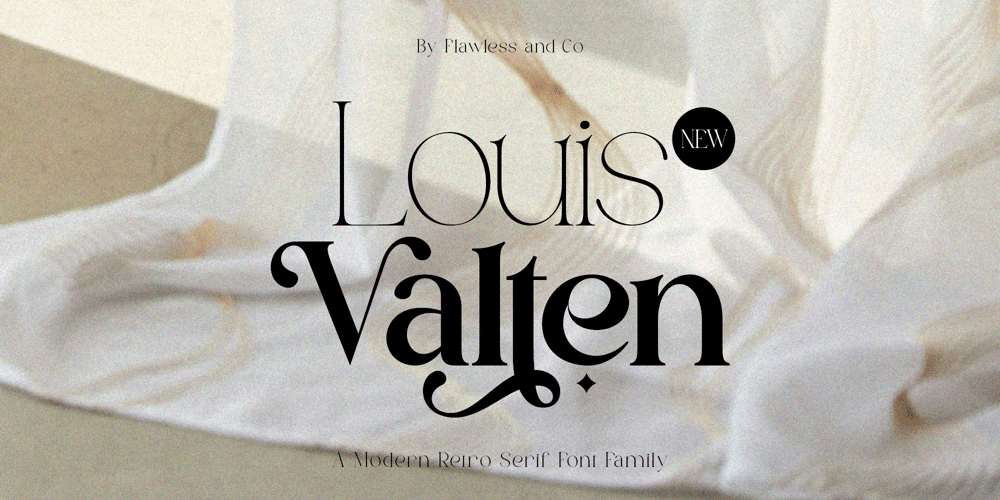
Louis Valten Font Family was designed by Achmad Yani and published by Flawlessandco. Louis Valten contains 7 styles and family package options. Step back in time with “Louis Valten,” a modern retro serif font family that combines the charm of vintage typography with contemporary sophistication. Perfect for branding, editorial design, and more, Louis Valten offers versatility and elegance in every letter.There’s some connected letters and some alternates that suitable for any graphic designs such as branding materials, t-shirt, print, business cards, logo, poster, t-shirt, photography, quotes .etcThis font support for some multilingual. Also contains uppercase A-Z and lowercase a-z, alternate character, numbers 0-9, and some punctuation.If you need help, just write me! Thanks so much for checking out my shop!